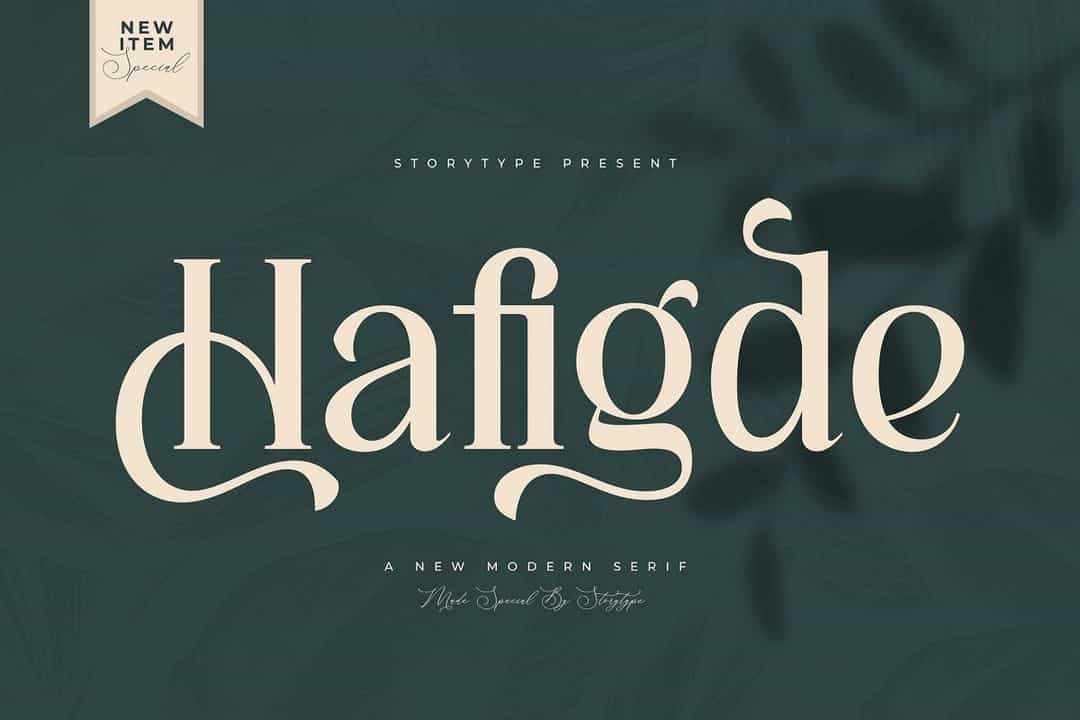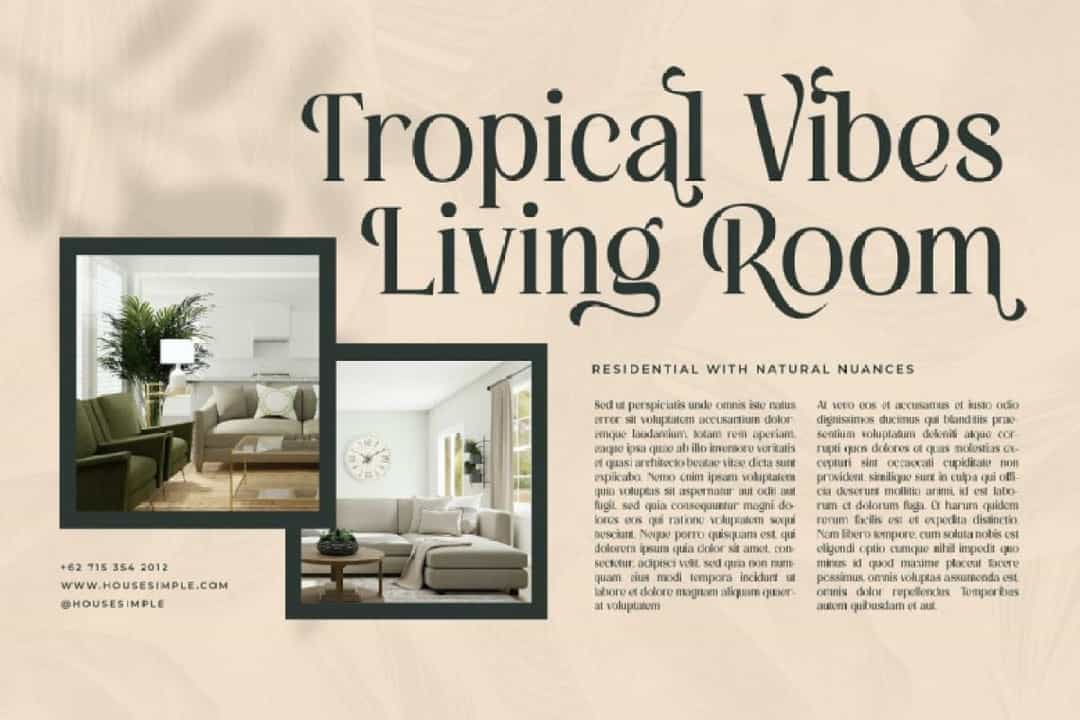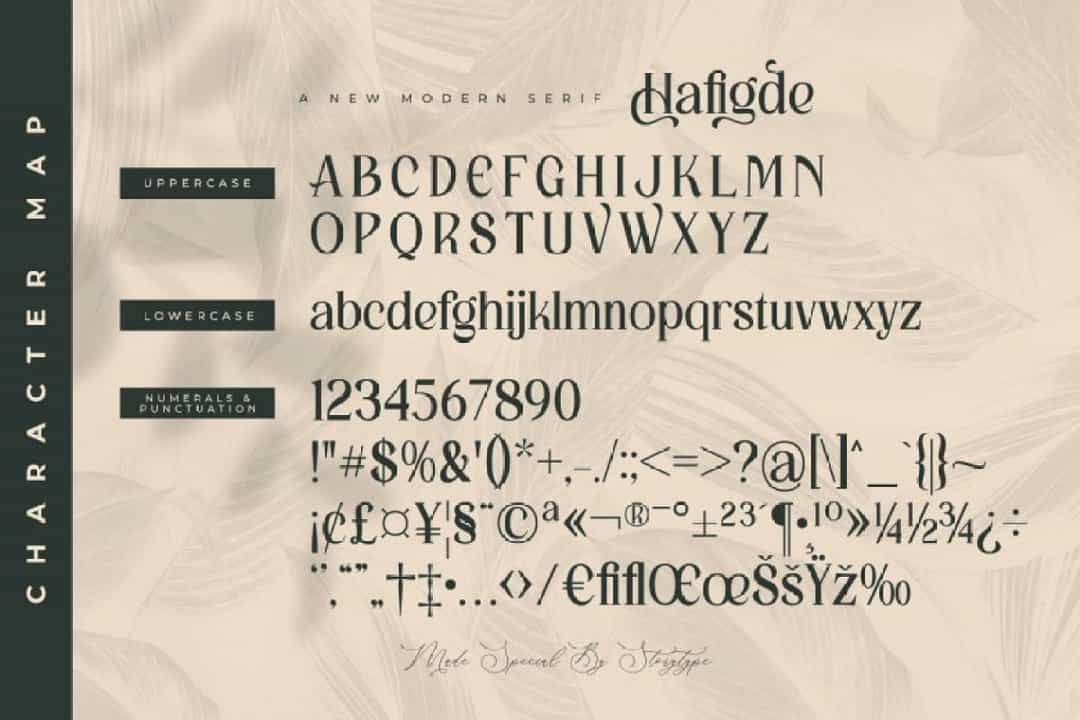
Hafigde is a contemporary and fashionable serif typeface with an attractive appearance that makes an excellent choice for creating classy logos, labels clothing items, magazines letters quotes etc.